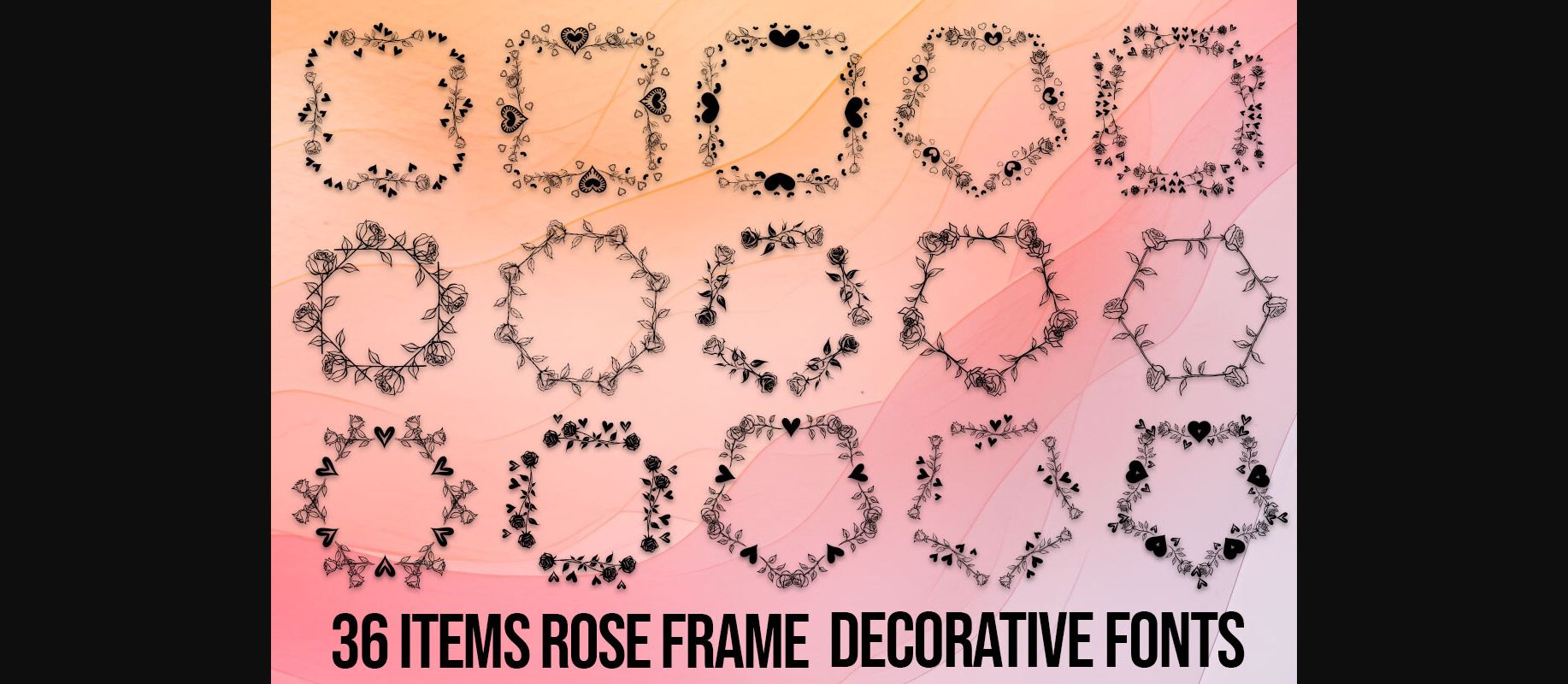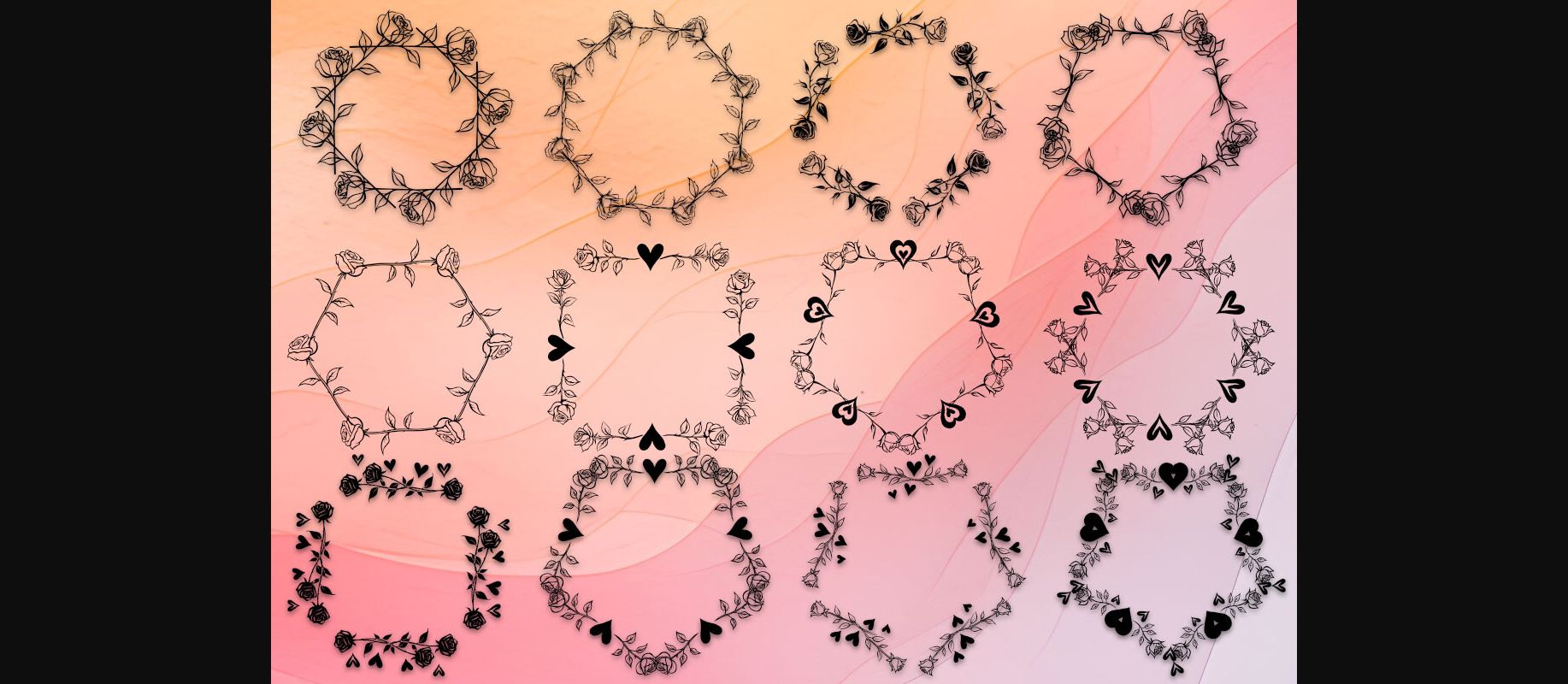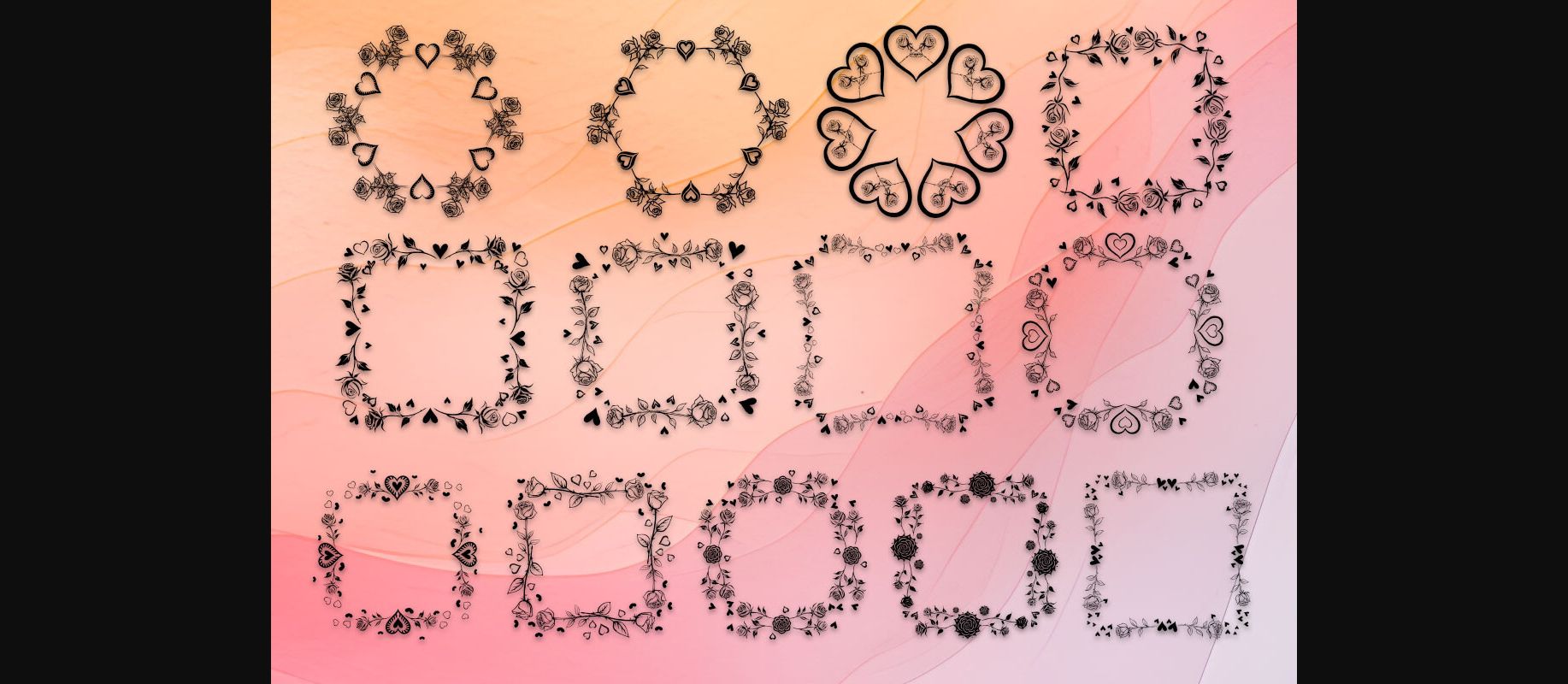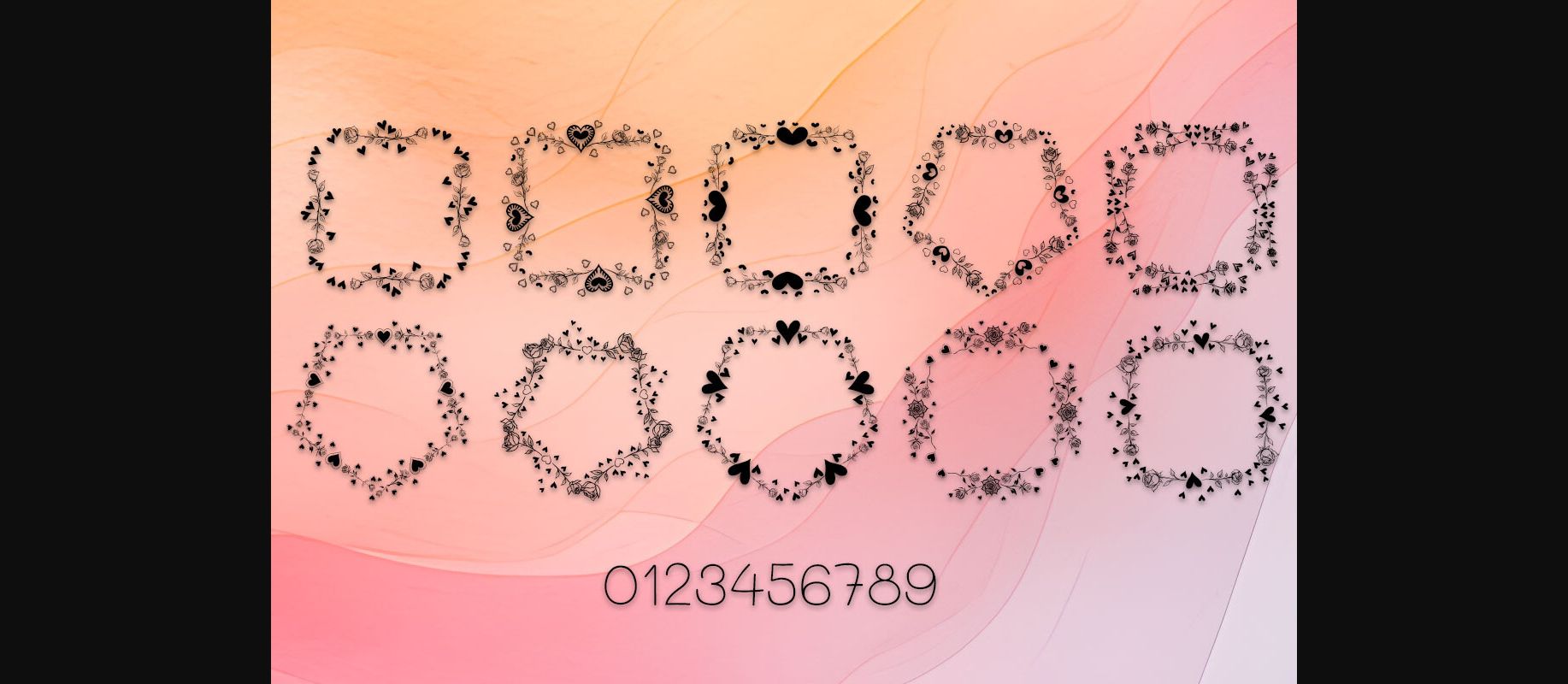
About Rose Frame Font
Introducing Rose Frame Decorative Fonts – a mesmerizing collection featuring uppercase letters from A to Z and numbers 0 to 9. Crafted ingeniously from the elegance of a rose, intertwined with heart motifs and symbolic elements, these fonts evoke grace and love. Perfect for infusing your designs with a romantic touch, whether for invitations, projects, or artistic creations. Elevate your typography with this enchanting blend of roses and heart symbols